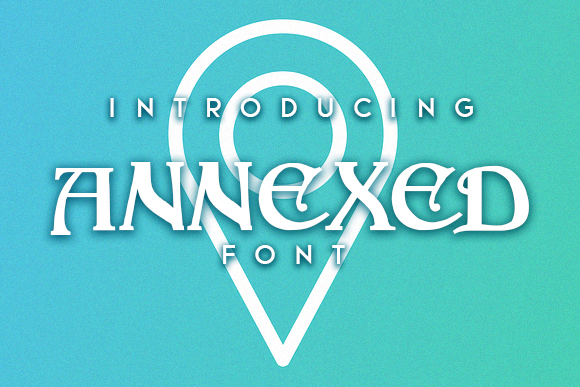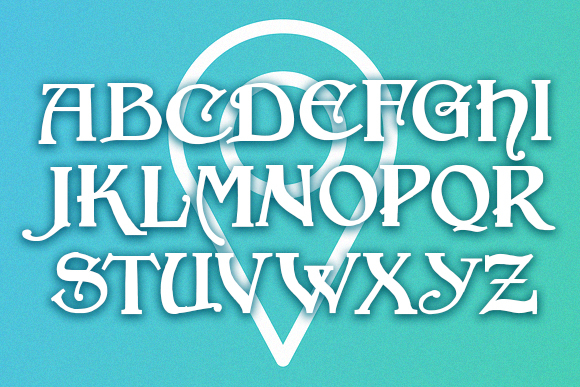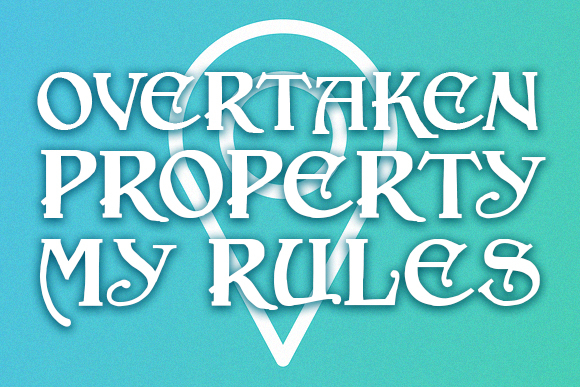
Annexed Font
About Annexed Font
Annexed is an awesome gothic typeface that will fit any of your designs and projects. Use this font on posters, flyers, and shirts.